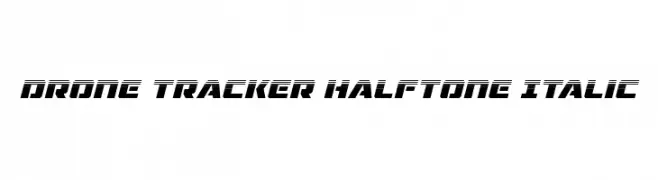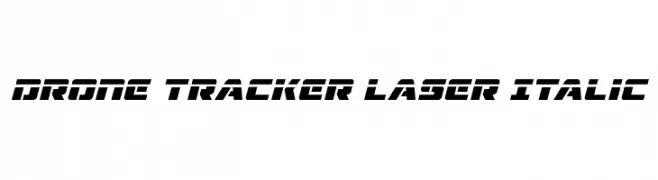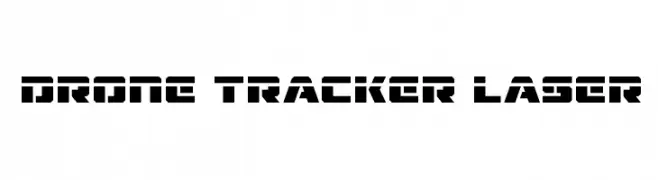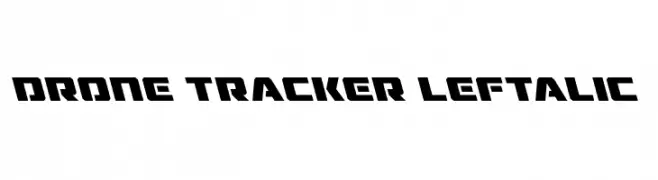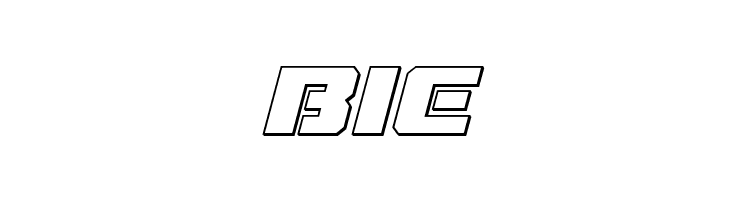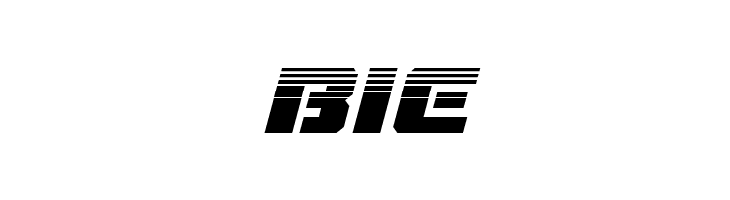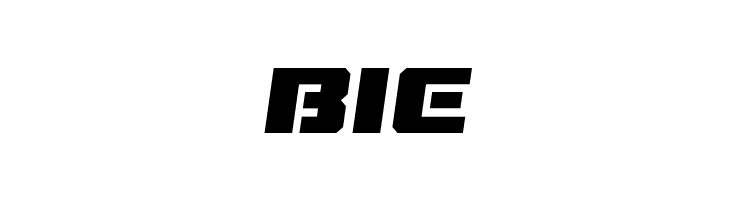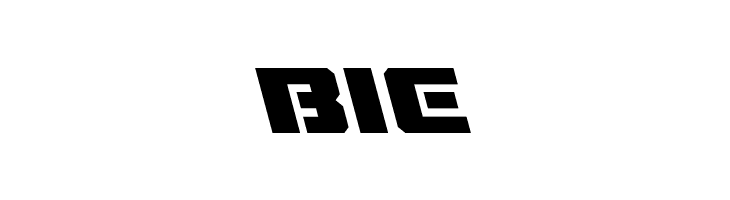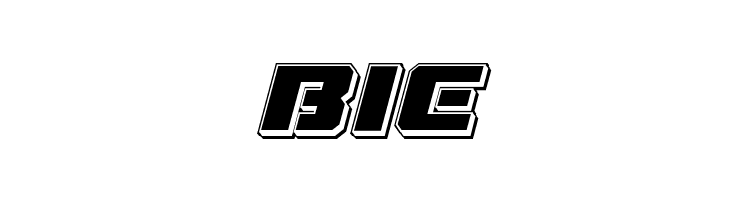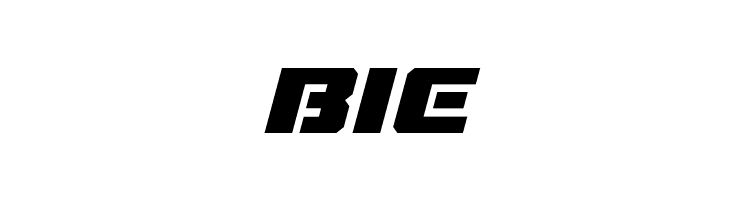
Bold, italicized font with a dynamic and impactful style.
A bold, italicized font with thick strokes and tight spacing, perfect for impactful headlines.
A futuristic, 3D geometric font with outlined characters and a sleek, modern aesthetic.
A futuristic, geometric, and condensed font with sharp angles.
A futuristic, geometric font with sharp angles and expanded width.
A futuristic, segmented font with a digital and modern aesthetic.
A futuristic font with a halftone pattern and geometric design.
A futuristic, geometric font with a digital and technological style.
A futuristic, angular font with a sleek, italicized design.
A sleek, futuristic font with a semi-italic slant and consistent stroke thickness.
A futuristic, geometric font with sharp angles and clean lines.
A bold, 3D italic font with a futuristic and tech-inspired design.
A bold, geometric font with a 3D outline effect, ideal for modern designs.
A bold, geometric font with strong, angular lines and a futuristic look.
A bold, italicized font with a futuristic, dynamic style.
A bold, geometric, and condensed font with a modern, futuristic style.
A modern, condensed italic font with a sleek, angular design.
A bold, futuristic font with geometric shapes and sharp angles.
A bold, expanded, and italic font with a futuristic and dynamic design.
A modern, italic font with bold, angular characters and a dynamic style.
A bold, angular font with a futuristic and dynamic style.
A bold, geometric outline font with a futuristic and angular design.
A bold, futuristic outline font with an italic slant and geometric design.
A bold, geometric font with a modern and angular design.
A bold, decorative font with geometric shapes and intricate dot patterns.
A bold, decorative 3D font with geometric patterns and circular cutouts.
A bold, 3D italic font with decorative circular accents and a modern, playful style.
A modern, decorative font with bold strokes and circular embellishments.
A modern, expanded, and italicized font with decorative circular accents.
A decorative, italicized font with circular embellishments and a modern flair.
A decorative and futuristic font with circular accents and geometric shapes.
A futuristic outline font with geometric and decorative elements.
A playful, decorative outline font with italic slant and circular embellishments.
A futuristic, geometric font with a 3D effect and bold outlines.